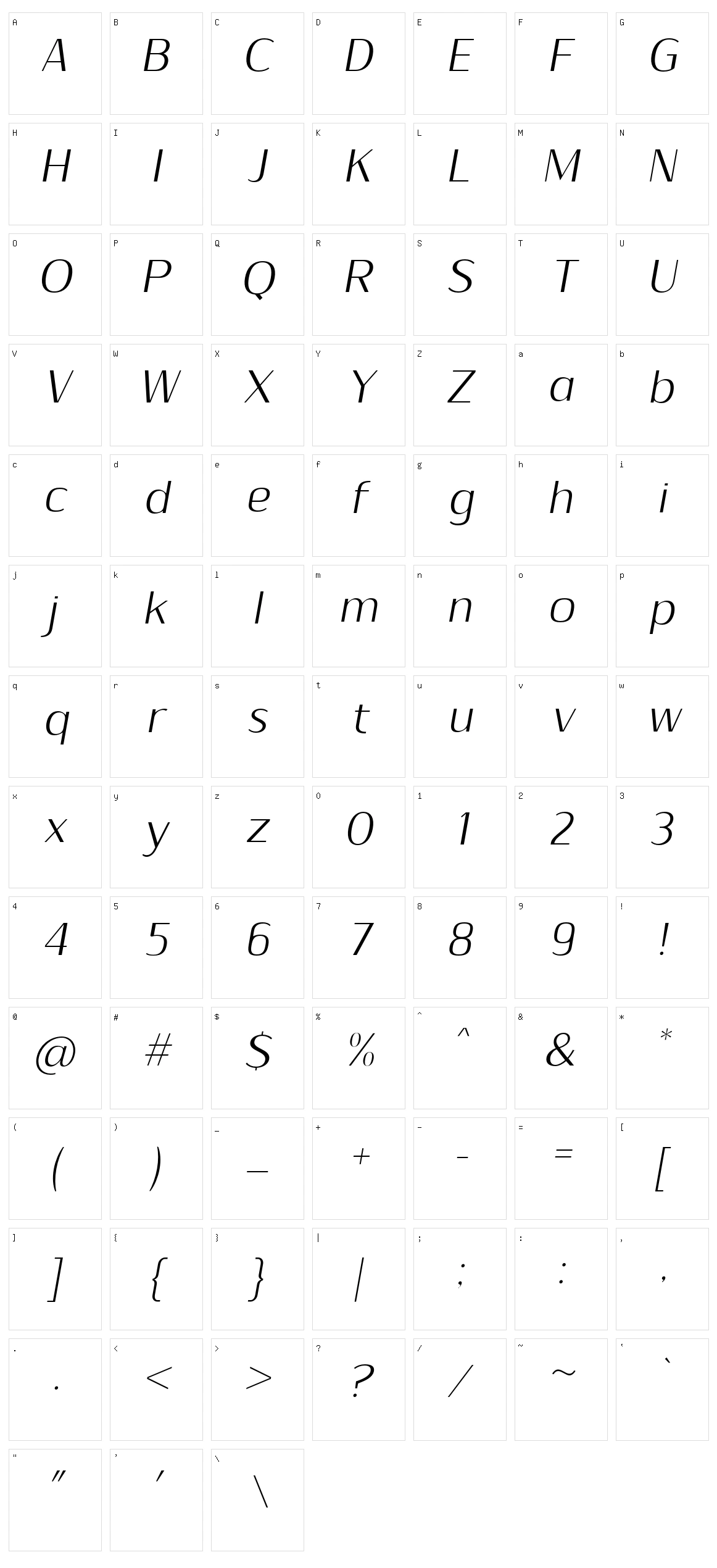
Sumptuous is a sans-serif family combining the geometric and the humanist models. presented by Locomotype. Suitable for magazine, paragraph, headline, body text and logo design. Complete family make your job is so easy to mix and match your designs to be more creative.
Cames with four weights, obliques, Latin and Cyrillic alphabets and OpenType features.